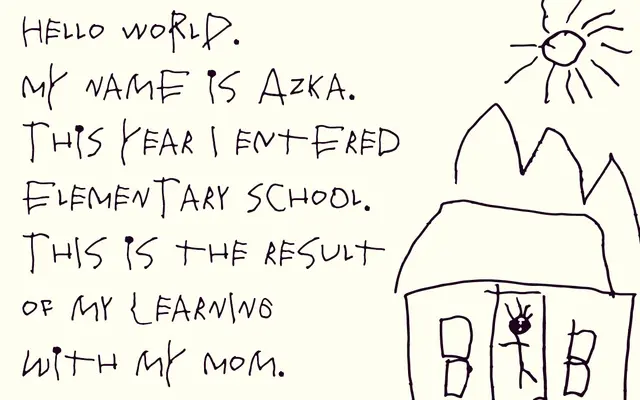
Mellow Punk – Cute Kids Font
Mellow Punk – Cute Kids Font specimen from Prioritype
A child-handwriting-inspired display face in two weights, aimed at educational materials, children's books and playful branding.
Mellow Punk mimics the uneven, earnest penmanship of a child learning to write, with each character drawn to suggest the wobble and spontaneity of early school exercises. It ships in Regular and Bold weights with full uppercase, lowercase, numerals and punctuation, alongside OTF, TTF, WOFF, AI, EPS and SVG formats. Bonus graphics are included for use alongside the typeface in decorative layouts.
A casual, child-like handwriting typeface designed for decorative and display use, drawing on the aesthetic of elementary school penmanship exercises rather than formal script traditions.